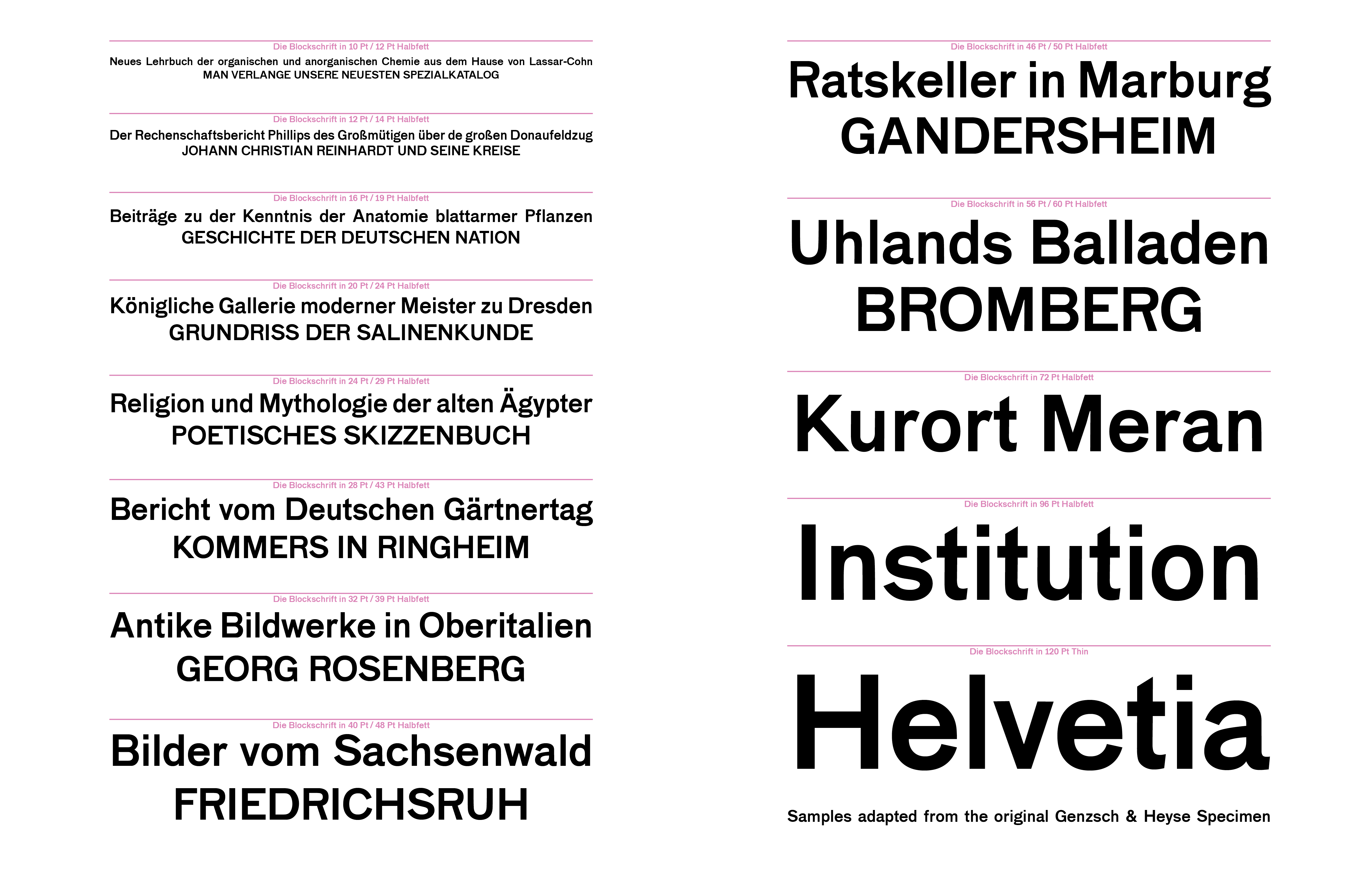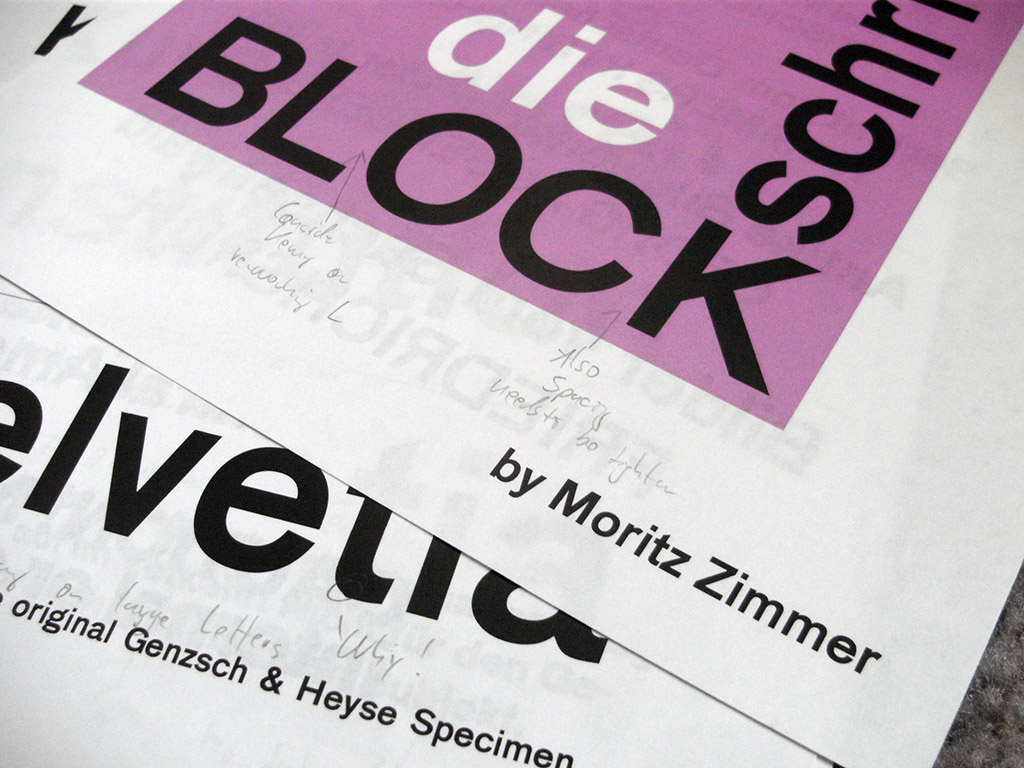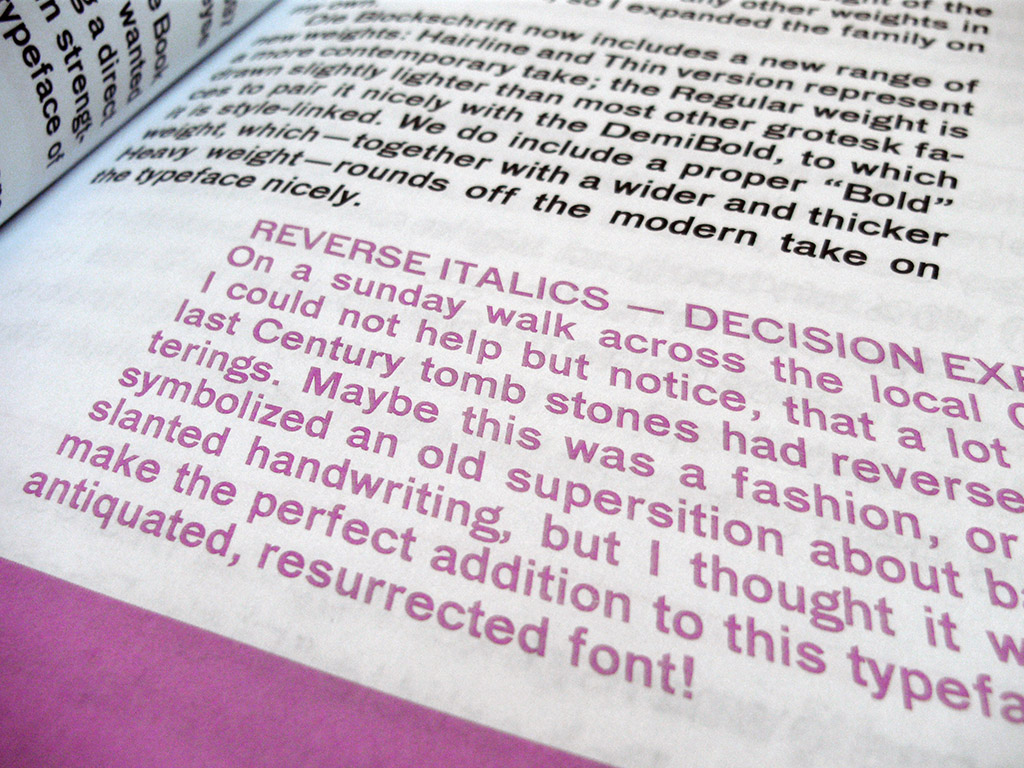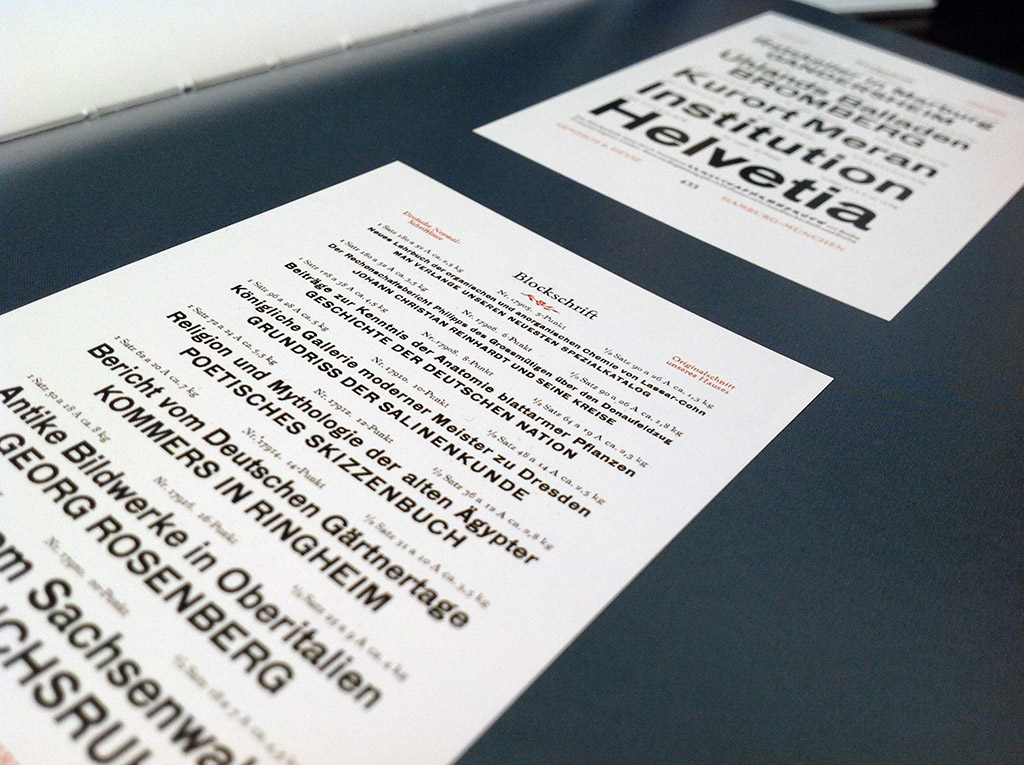
Die Blockschrift
Typeface Created February 2016, last updated 01 September 2021 Die Blockschrift is my version of the 1897 font “Blockschrift” from the Genzsch & Heyse type foundry. (read more here)
It is also the typeface of choice for this website’s home page!
Pictures of the Original Blockschrift Specimen in “Sans Serif”
Die Blockschrift now includes a new range of new weights: Hairline and Thin version represent a more contemporary take; the Regular weight is drawn slightly lighter than most other grotesk faces to pair it nicely with the DemiBold, to which it is style-linked. I also include an ExtraBold weight, which—together with a wider and thicker Heavy weight—rounds off the modern take on the typeface nicely.
Reverse Italics!